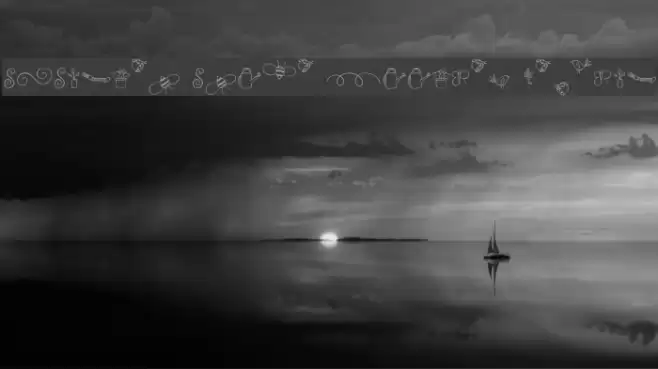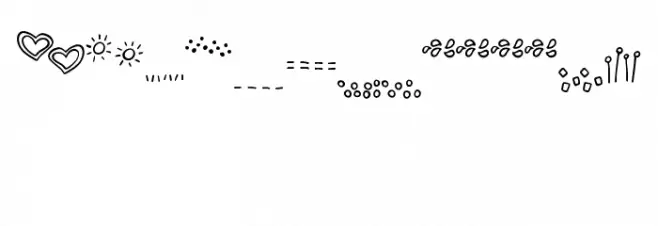
GJ-Garden Gnome Doodles Regular Font
GJ-Garden Gnome Doodles Regular Description
This collection features whimsical, hand-drawn doodles inspired by garden themes. The designs include playful elements such as swirls, scalloped edges, and various garden-related illustrations like flowers, ladybugs, bees, and watering cans. Each doodle is crafted with a lighthearted and fun aesthetic, perfect for adding a touch of charm and creativity to any project. The strokes are consistent and clean, with a casual and approachable style that evokes a sense of joy and nature. These doodles are ideal for enhancing designs with a playful and organic feel.
- Proposed Projects: Ideal for greeting cards, children's book illustrations, scrapbooking, and DIY projects.
- Use Case: Logos, Decorative elements